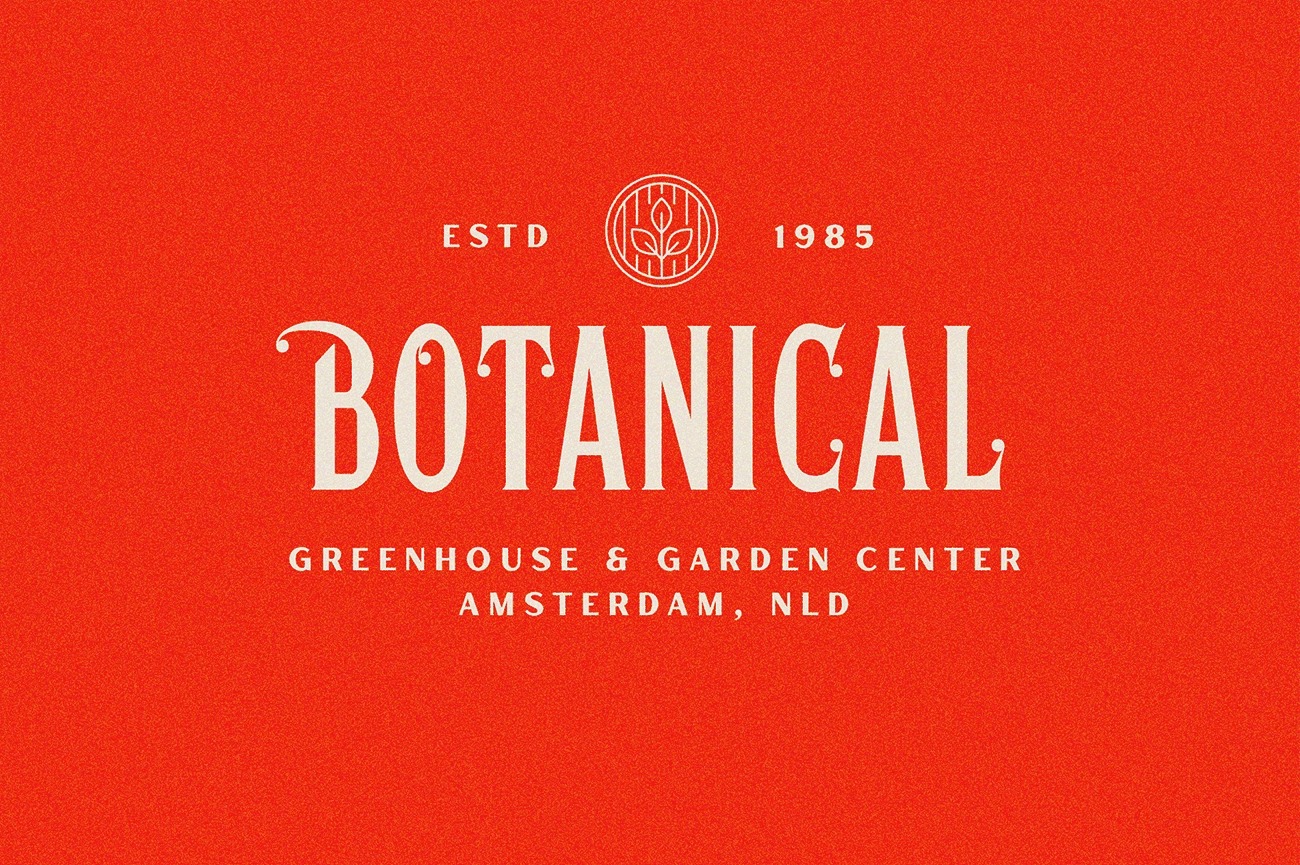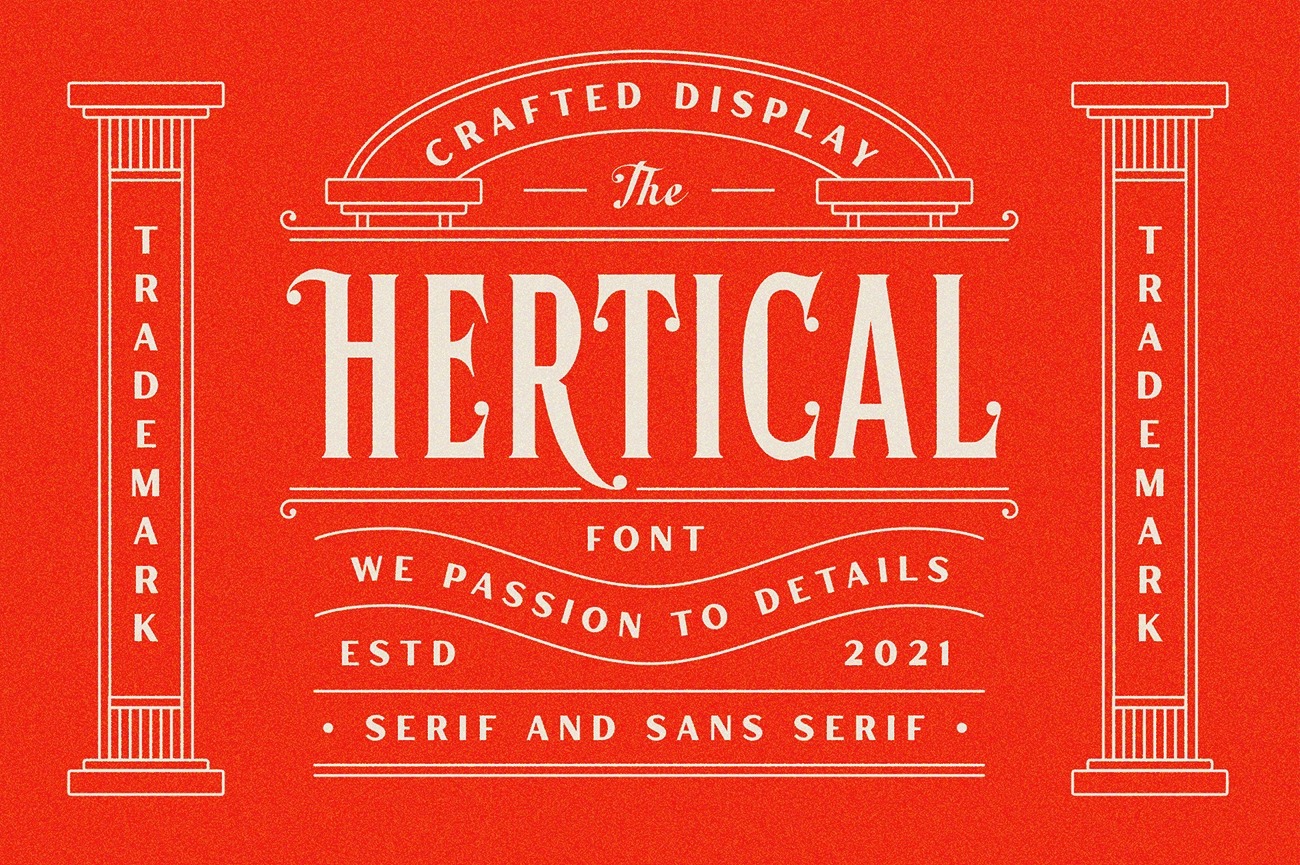
Hertical Font
Hertical Display Font
This is font a typeface which is inspired by vintage lettering sign and art. Hertical come with two typefaces, serif and sans serif. Every typeface contains four styles (regular, smooth, rough and texture). This matches applies in some designs such as the logotype, poster, label, badge, packaging, branding, quotes and more custom design.